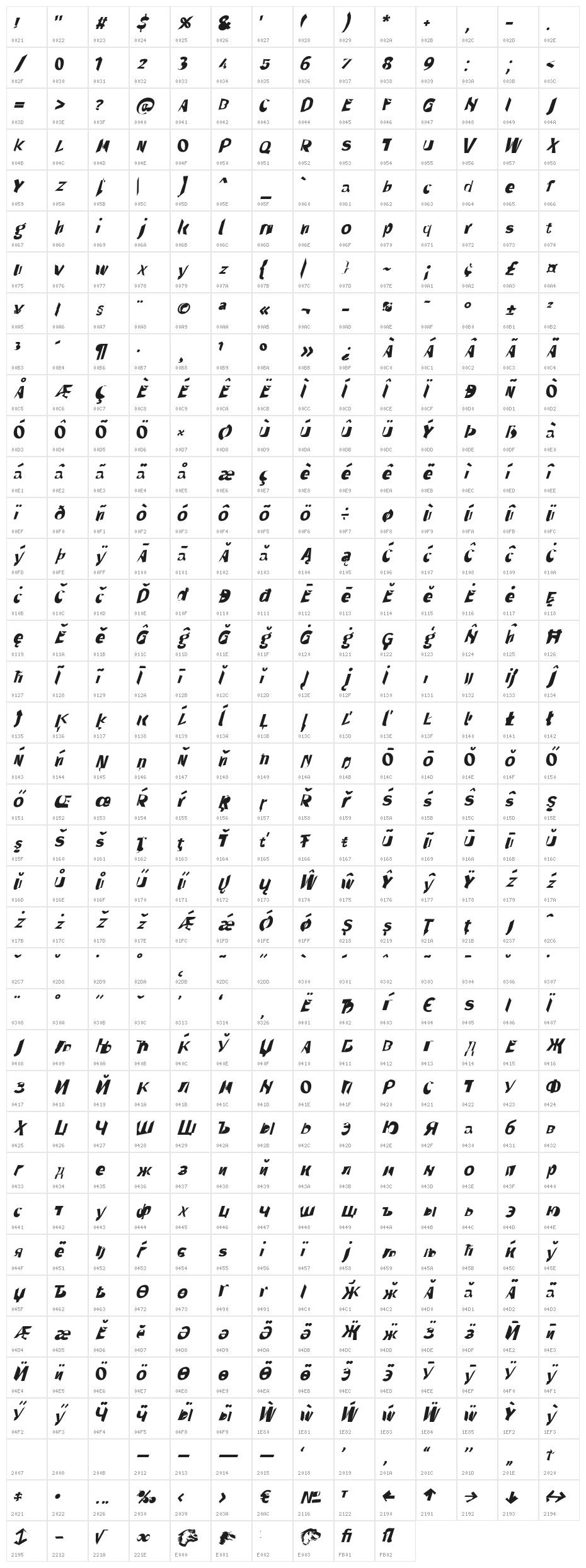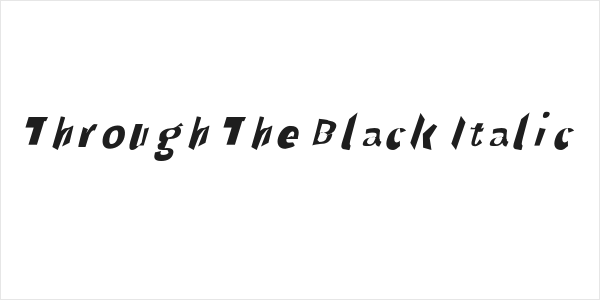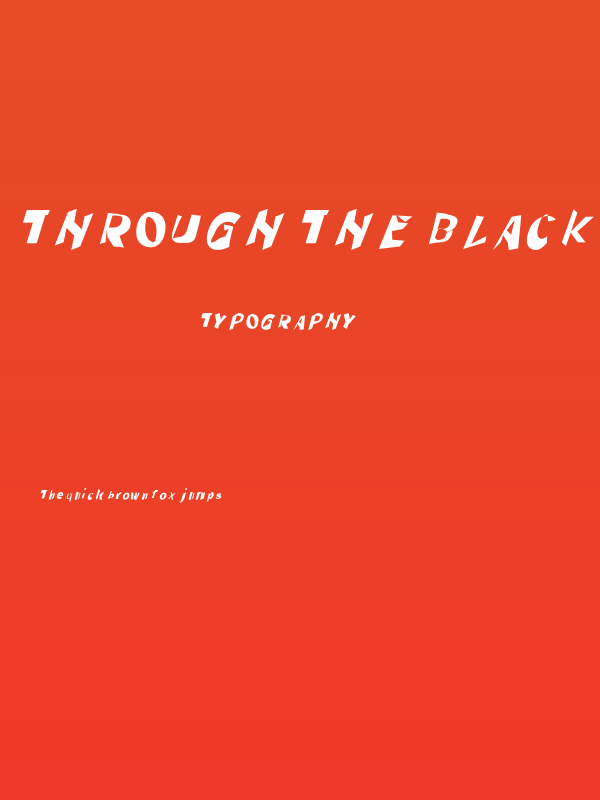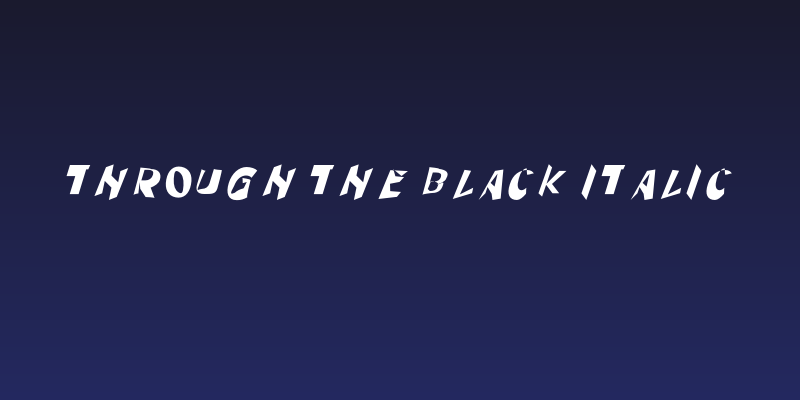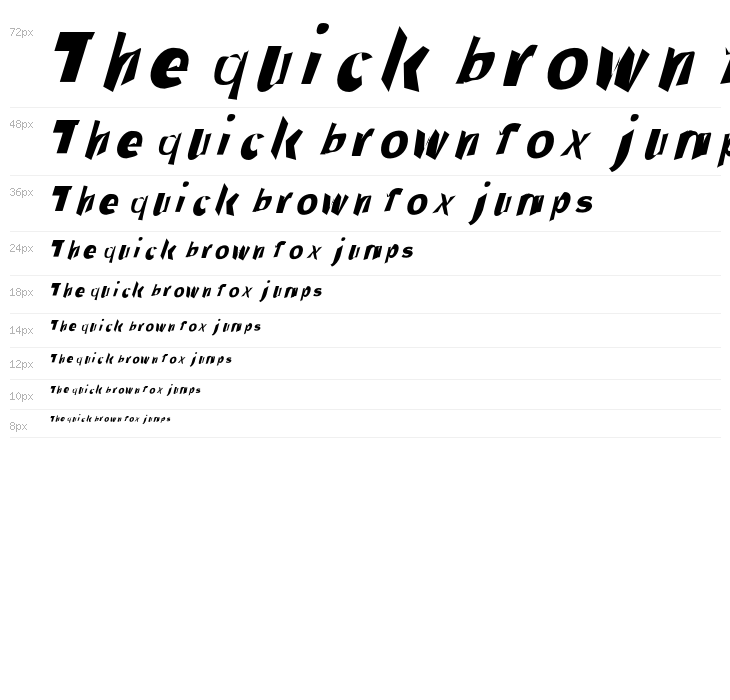
Through The Black Italic Font
Through The Black Italic Description
This font features a bold and dynamic italic style with sharp, angular edges and a distinct slant, giving it a sense of movement and energy. The uppercase letters are particularly striking, with exaggerated forms that create a strong visual impact. The lowercase letters maintain the same angular style, ensuring consistency throughout the typeface. Numbers and special characters are designed with the same boldness and angularity, making them stand out. The font's unique style makes it suitable for projects that require a modern and edgy look.
| Proposed Projects | Ideal for branding, posters, album covers, and any project needing a bold, modern aesthetic. |